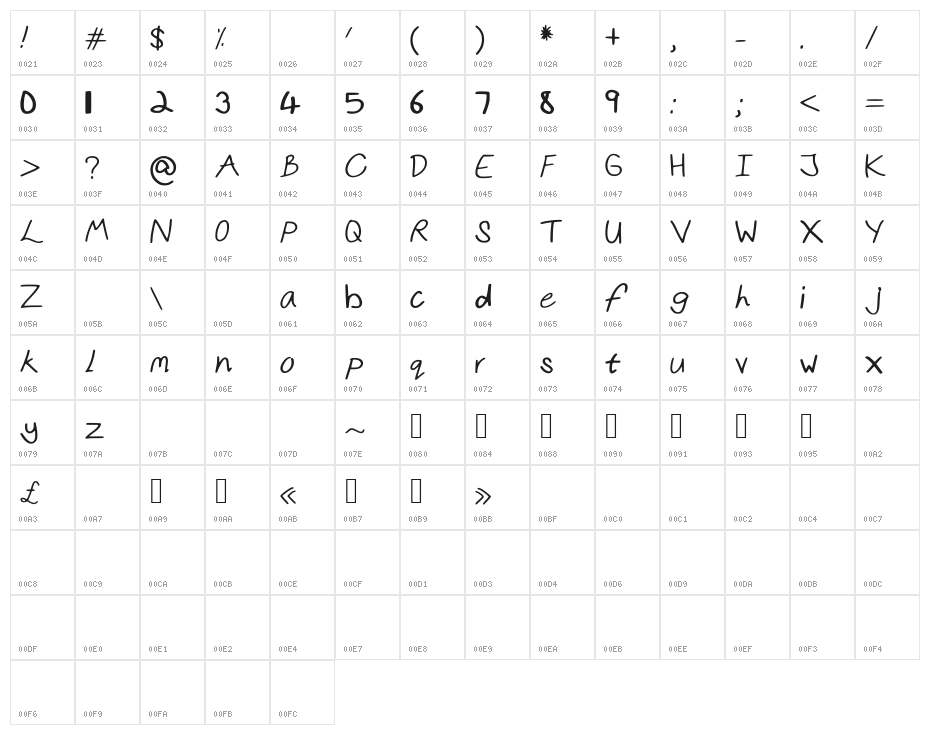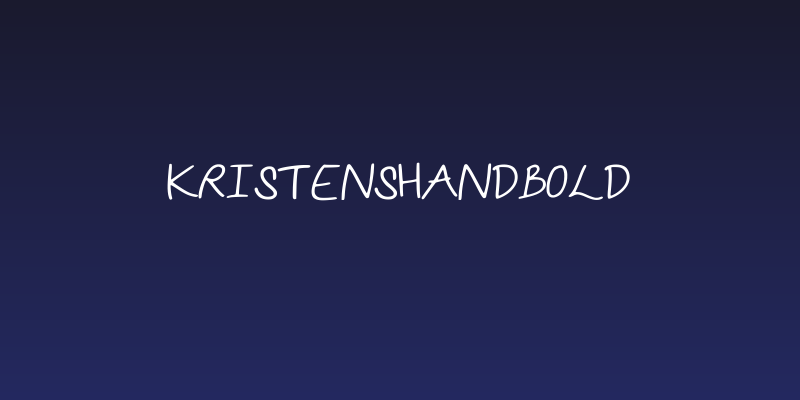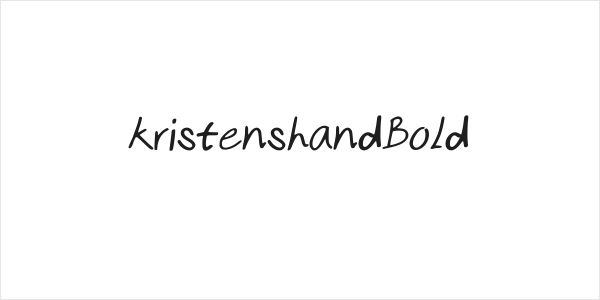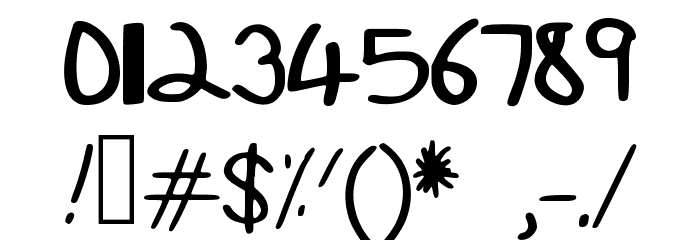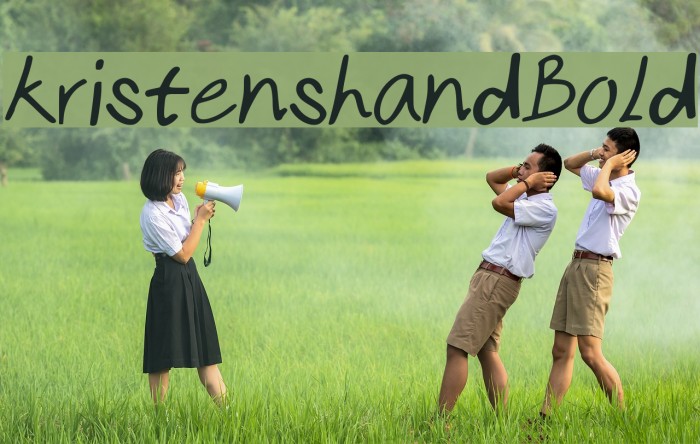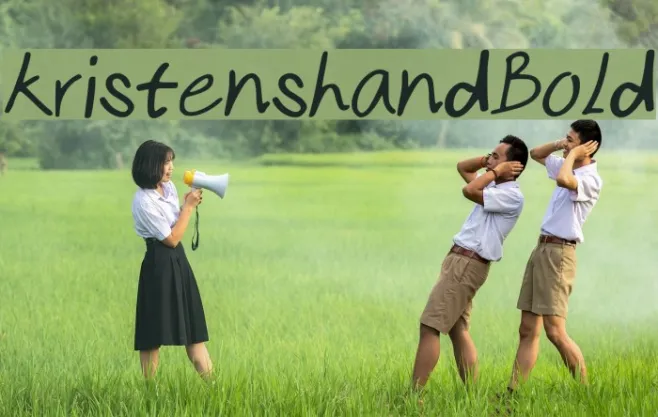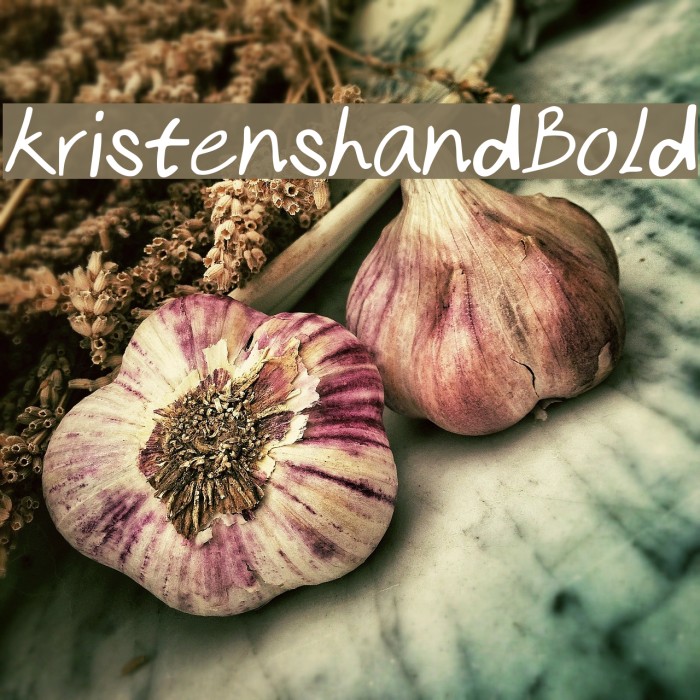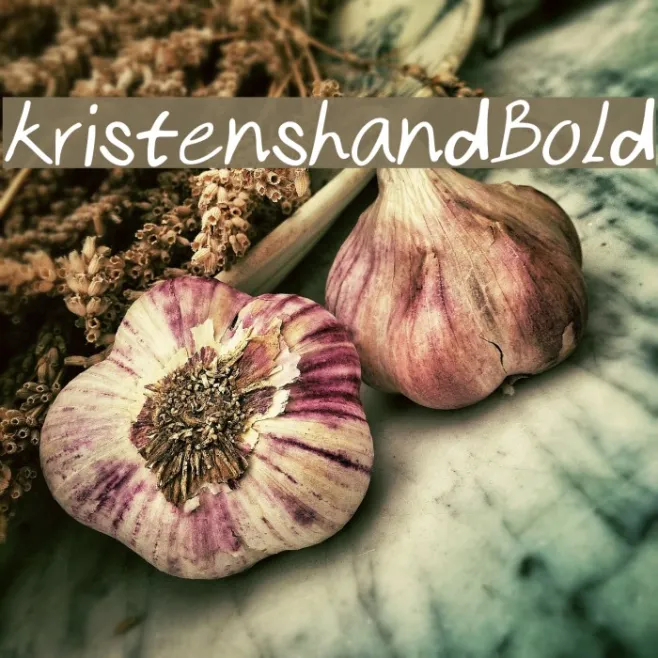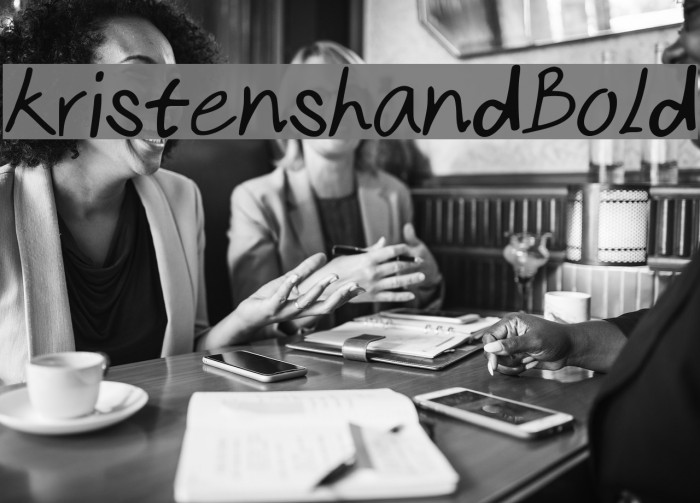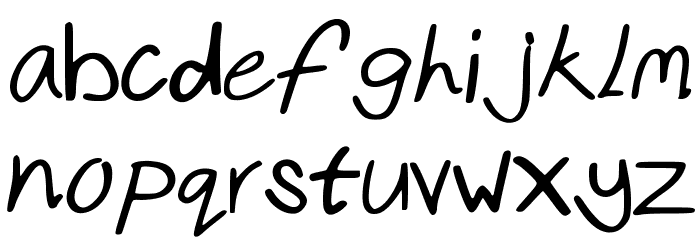
kristenshandBold Font
kristenshandBold Description
This playful and casual handwritten font features a bold and slightly irregular style, reminiscent of natural handwriting. The letters have a smooth, flowing appearance with rounded edges, giving it a friendly and approachable feel. The uppercase and lowercase letters maintain a consistent style, with some variation in stroke thickness that adds to its charm. The numerals and special characters are equally expressive, making it suitable for a variety of creative applications. Its boldness ensures readability while maintaining a personal touch.
| Overall Style | Casual, Playful |
| Use Case | Headlines, Logos, Invitations |
| Proposed Projects | Ideal for greeting cards, invitations, children's books, and playful branding projects. |